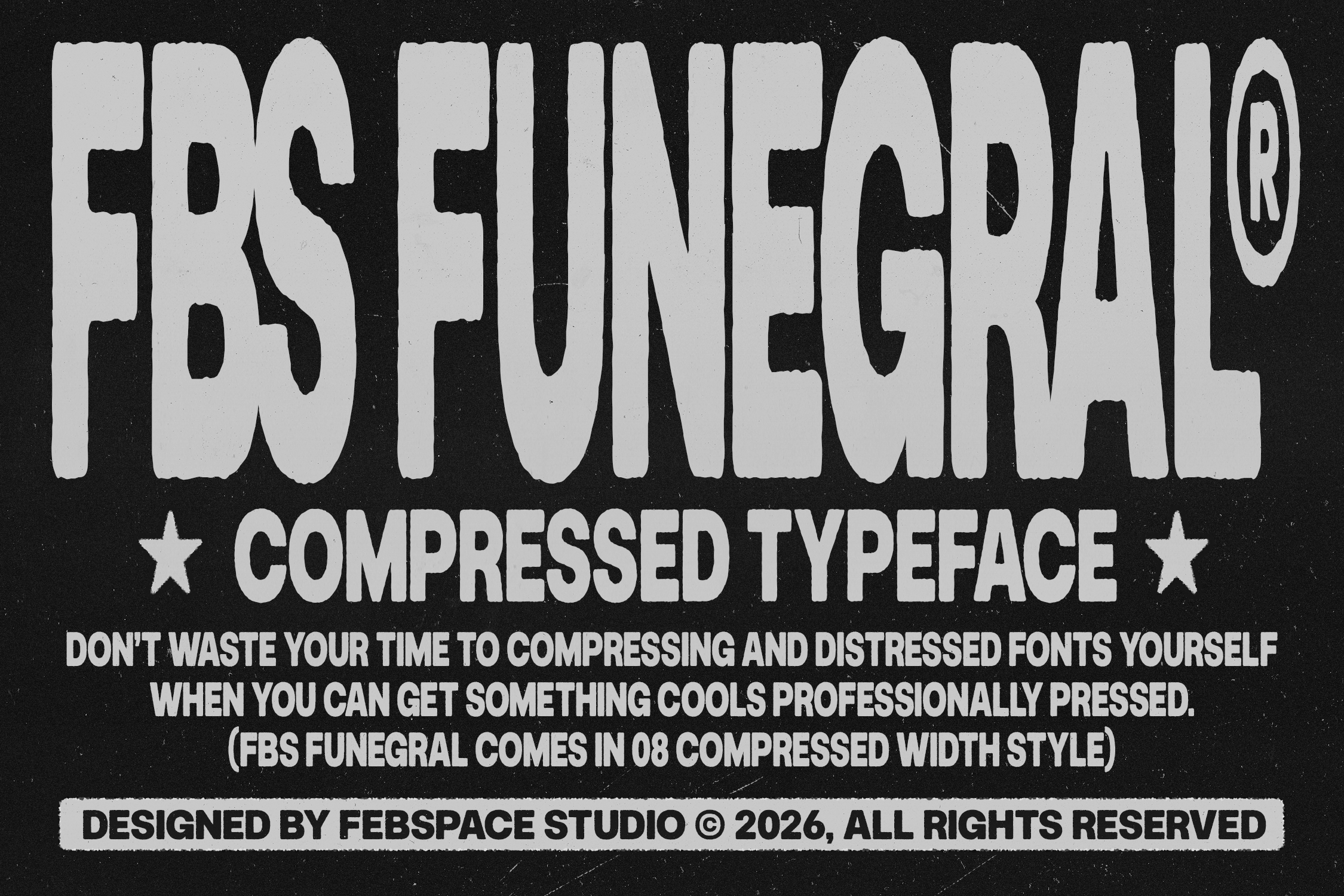
FBS Funegral - Compressed Font
FBS FUNEGRAL: Stop Compressing, Start Designing.
Stop wasting your creative energy manually distorting and distressing fonts to get that raw, high-impact look. FBS FUNEGRAL is a powerhouse compressed typeface designed to deliver instant visual authority with a professionally "pressed" aesthetic. Built for designers who demand maximum impact in narrow spaces, this font offers a seamless transition from ultra-squeezed tension to normal width, ensuring your headlines command the room before a single word is read. It’s not just a typeface; it’s a high-octane shortcut to industrial-strength layout design.
FBS FUNEGRAL is born from the grit of the street and the cold precision of industrial Brutalism. Its construction is defined by a "squeezed" logic—mimicking the aesthetic of analog type pushed to its physical limits under a heavy press. The visual tone is unapologetically loud and tactile, featuring a subtle rough texture that mimics ink bleed and weathered printing. This isn't a font that asks for permission; it’s a font that fights for every millimeter of space. Whether you are channeling the energy of a DIY gig poster or the tech-focused minimalism of modern "cyber-urban" aesthetics, FUNEGRAL provides the structural backbone needed for heavy-duty messaging.
This collection is a versatile toolkit for streetwear brands, editorial designers, and creative directors who specialize in high-contrast visual identities. FUNEGRAL excels in environments where space is at a premium but impact cannot be sacrificed—think bold apparel graphics, record label identity, festival posters, and high-energy social media assets. While its "Ultra Squeezed" styles provide a rhythmic, almost abstract texture for background layers, the "Normal" and "Medium" widths offer surprising legibility for digital headlines and brutalist UI elements. It’s the ultimate choice for creators looking to bridge the gap between human-made "imperfection" and technical execution.
Technical Feature Breakdown • 8 Dynamic Width Styles: Ranging from Normal and Medium to the extreme Ultra Squeezed. • Rough, High-Impact Texture: Built-in distressed detailing that captures the feel of professionally pressed ink. • Full Character Set: Includes Uppercase, Lowercase, Numbers, and essential Punctuation. • Multilingual Support: Ready for global projects with extended Latin character support. • Precision Kerning: Optimized for tight leading and narrow tracking without losing form. • Cross-Platform Ready: Provided in OTF and WOFF formats for seamless use across print and web.